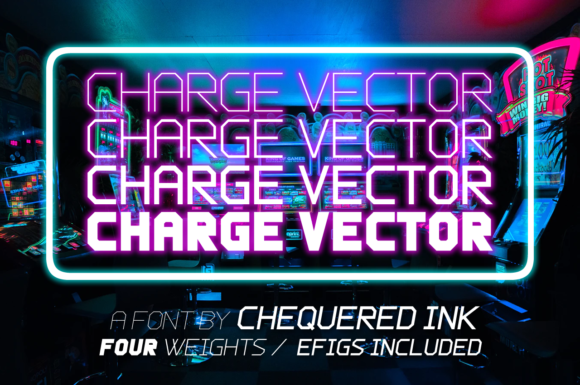
Introducing Charge Vector Font: The Ultimate Display Font for Modern Designers
In the world of digital design, fonts play a crucial role in conveying the message and aesthetic of a project. With the vast array of fonts available, it can be overwhelming to choose the perfect one that combines style, trendiness, and versatility. This is where Charge Vector Font comes in – a bold, all-caps display font that is taking the design world by storm.
What is Charge Vector Font?
Charge Vector Font is a modern, bold, and eye-catching display font designed to add a touch of trendiness to any project. Its sleek and clean lines make it perfect for a wide range of applications, from digital designing and presentations to crafting and greeting cards making.
Key Features of Charge Vector Font
- Bold and Eye-Catching: Charge Vector Font is designed to make a statement. Its bold and all-caps design ensures that your text stands out from the crowd, grabbing the attention of your audience.
- Versatile: Whether you’re working on a digital project, creating a presentation, or making a greeting card, Charge Vector Font is the perfect choice. Its versatility makes it suitable for various design applications.
- Trendy: Charge Vector Font boasts a modern and trendy design that’s perfect for designers who want to stay ahead of the curve. Its sleek lines and bold aesthetic ensure that your project looks contemporary and stylish.
- Easy to Read: Despite its bold design, Charge Vector Font is easy to read, making it perfect for headlines, titles, and short texts.
Use Cases for Charge Vector Font
Charge Vector Font is perfect for a wide range of design applications, including:
- Digital Designing: Use Charge Vector Font to add a bold and modern touch to your digital designs, such as brochures, flyers, and social media graphics.
- Presentations: Make your presentations stand out with Charge Vector Font. Its bold design ensures that your title slides and headings grab the attention of your audience.
- Crafting: Add a touch of modernity to your crafting projects, such as handmade cards, scrapbooking, and DIY projects.
- Greeting Cards Making: Create stunning greeting cards with Charge Vector Font. Its bold and eye-catching design ensures that your cards stand out from the crowd.
Why Choose Charge Vector Font?
With so many fonts available, why choose Charge Vector Font? Here are a few reasons:
- Unique Design: Charge Vector Font boasts a unique and modern design that’s sure to make your project stand out.
- High-Quality: Charge Vector Font is a high-quality font designed to ensure that your project looks professional and polished.
| Font Name | Charge Vector Font |
| Author | Chequered Ink |
Charge Vector Font is a bold, modern, and versatile display font that’s perfect for designers and crafters looking to add a touch of trendiness to their projects. Its sleek lines, bold design, and ease of use make it an excellent choice for a wide range of design applications. Whether you’re working on a digital project, creating a presentation, or making a greeting card, Charge Vector Font is the perfect choice. So why wait? Download Charge Vector Font today and take your designs to the next level!